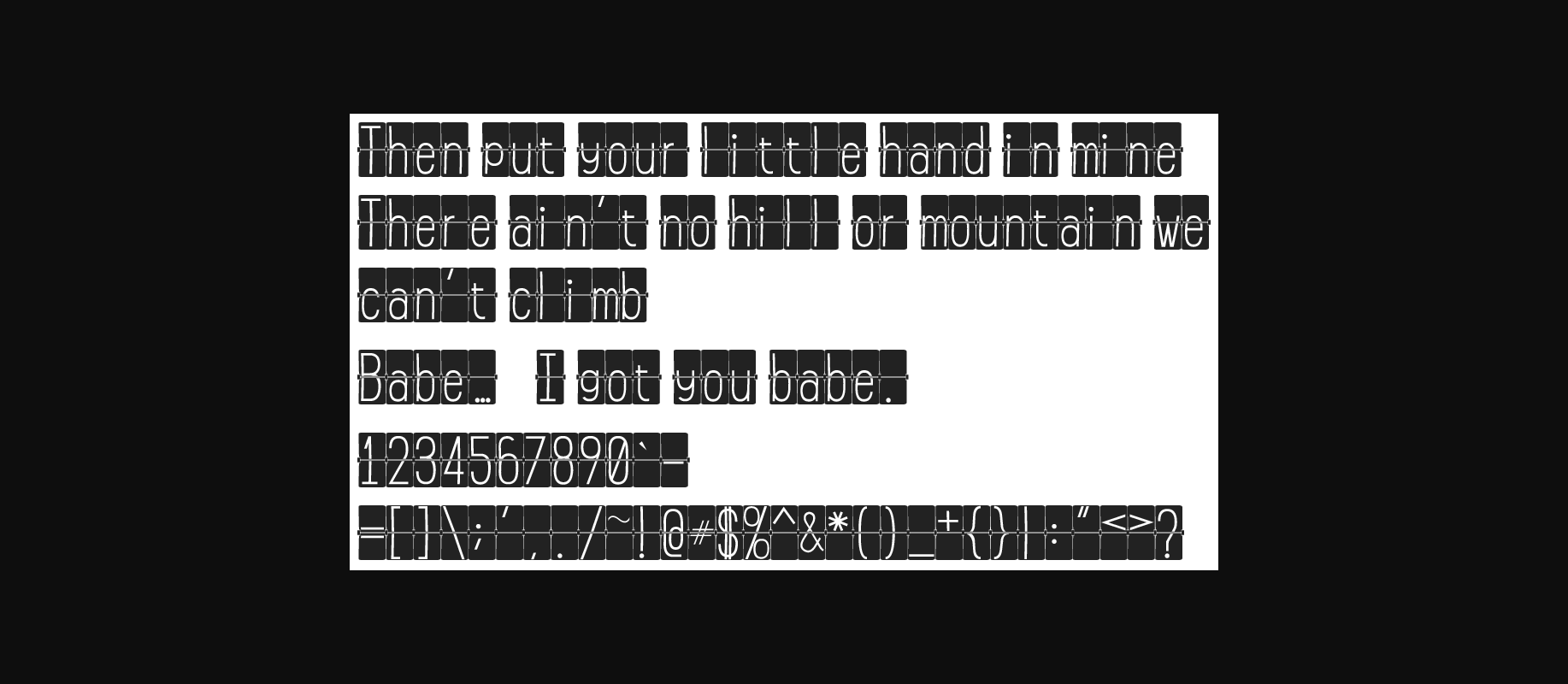
Flip Clock: Black Font
Remember vintage flip clocks? You know, the clock that kept you up all night due to the ‘CLICK’ every minute? Time to relive it again and again with Flip Clock, a whimsical and decorative font!